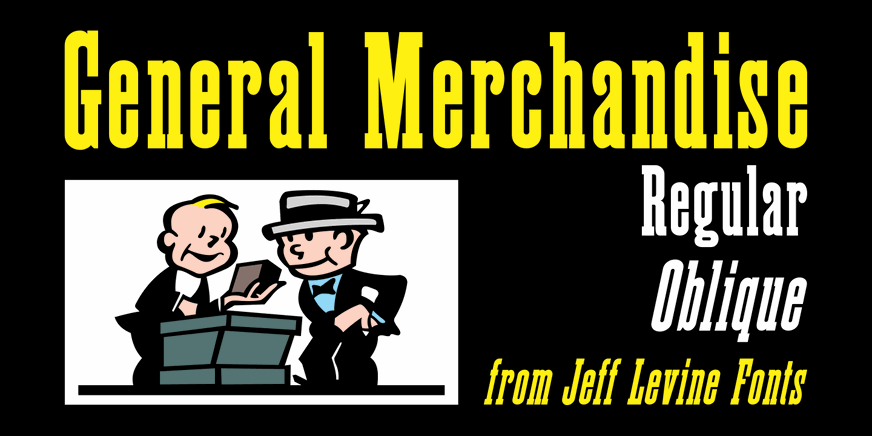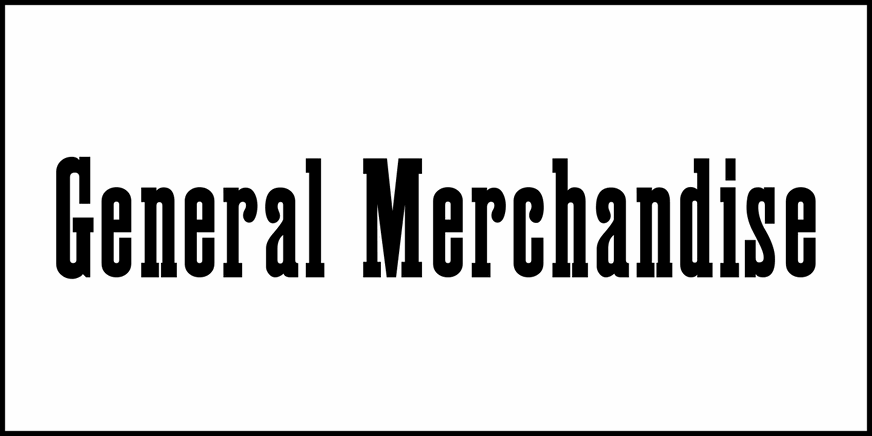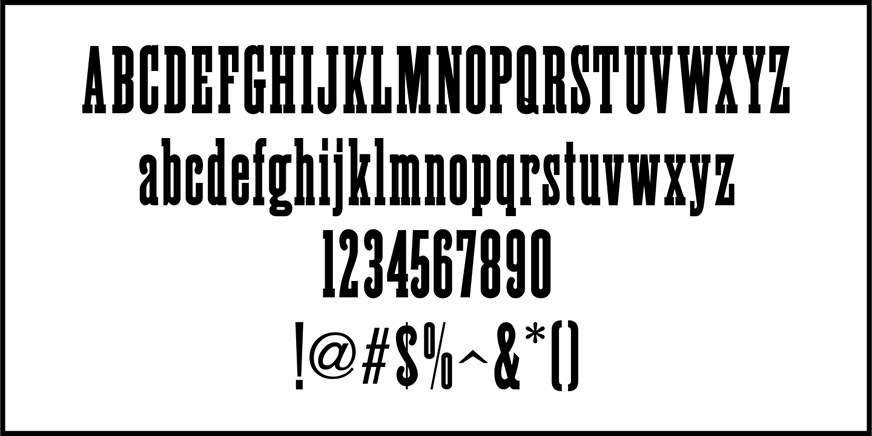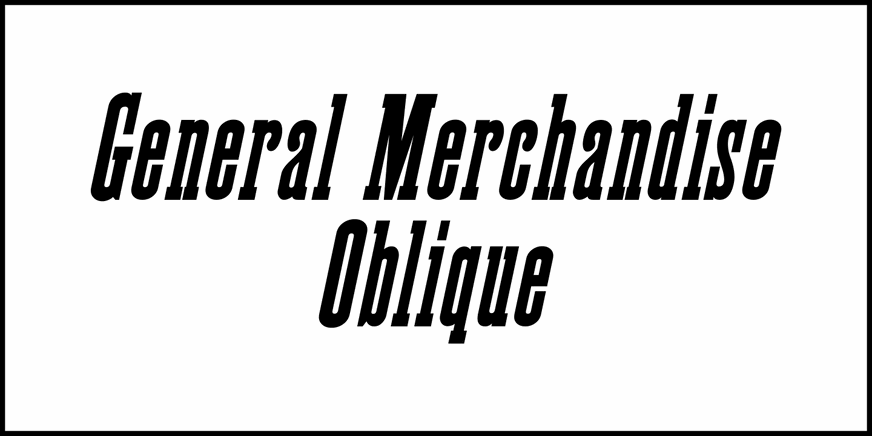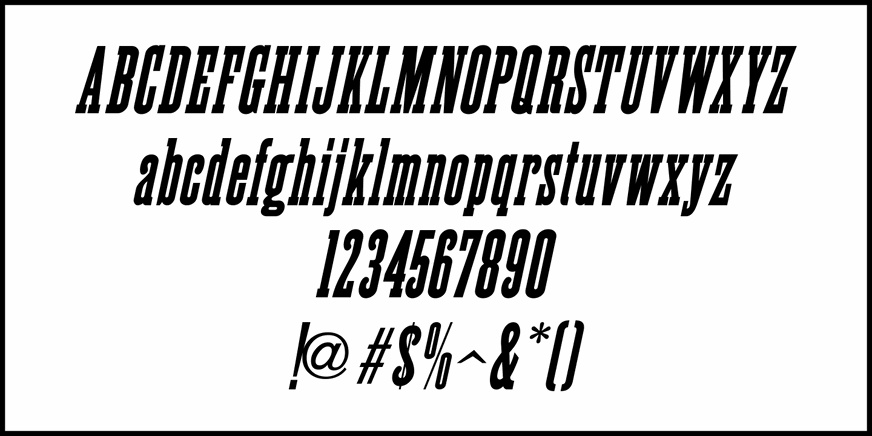
General Merchandise
Antique X Condensed is a condensed slab serif font found with the pages of a Rob Roy Kelly book of wood type designs.
It was introduced around 1840 by Wells and Webb, and the example served as the model for General Merchandise JNL, which is available in both regular and oblique versions.